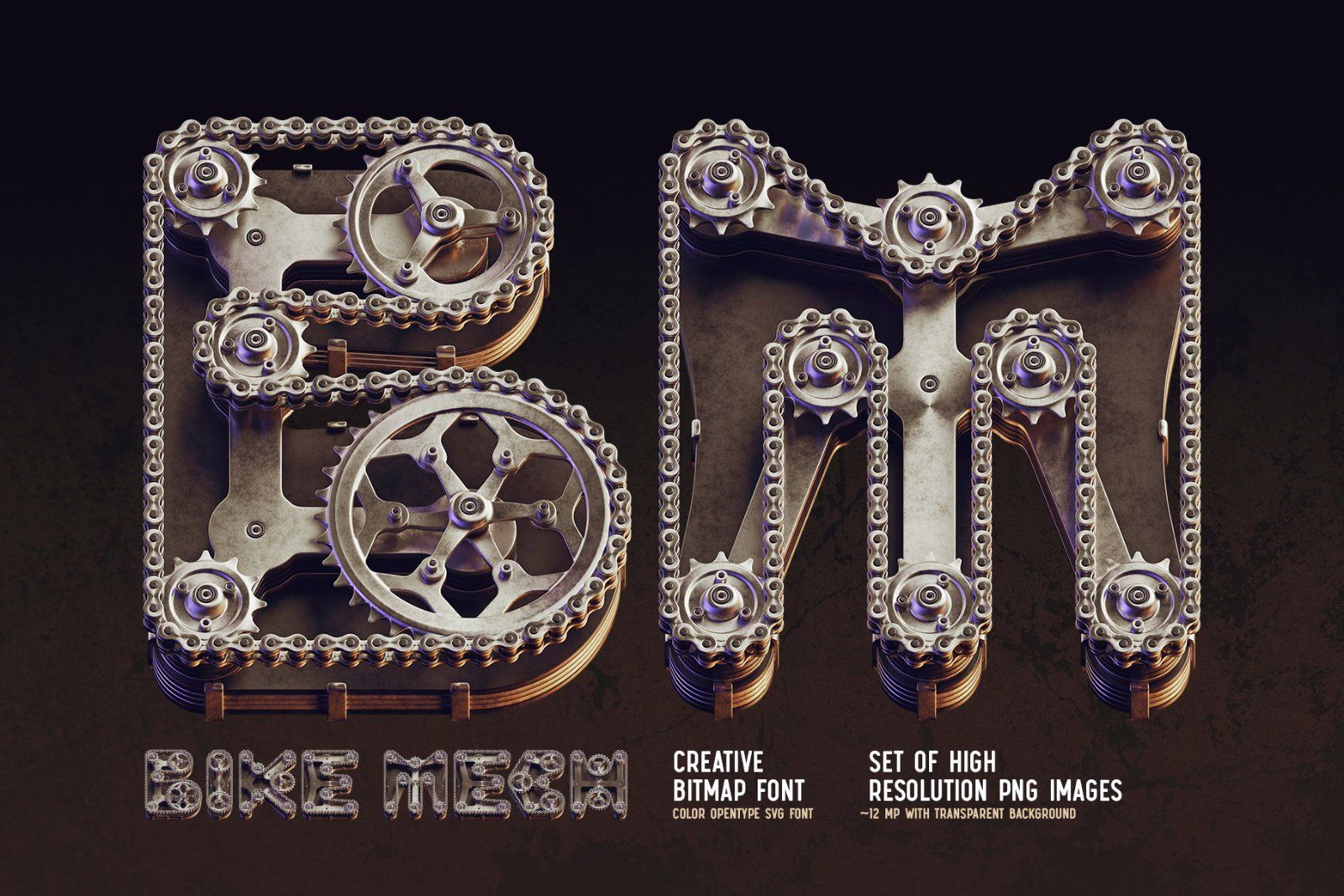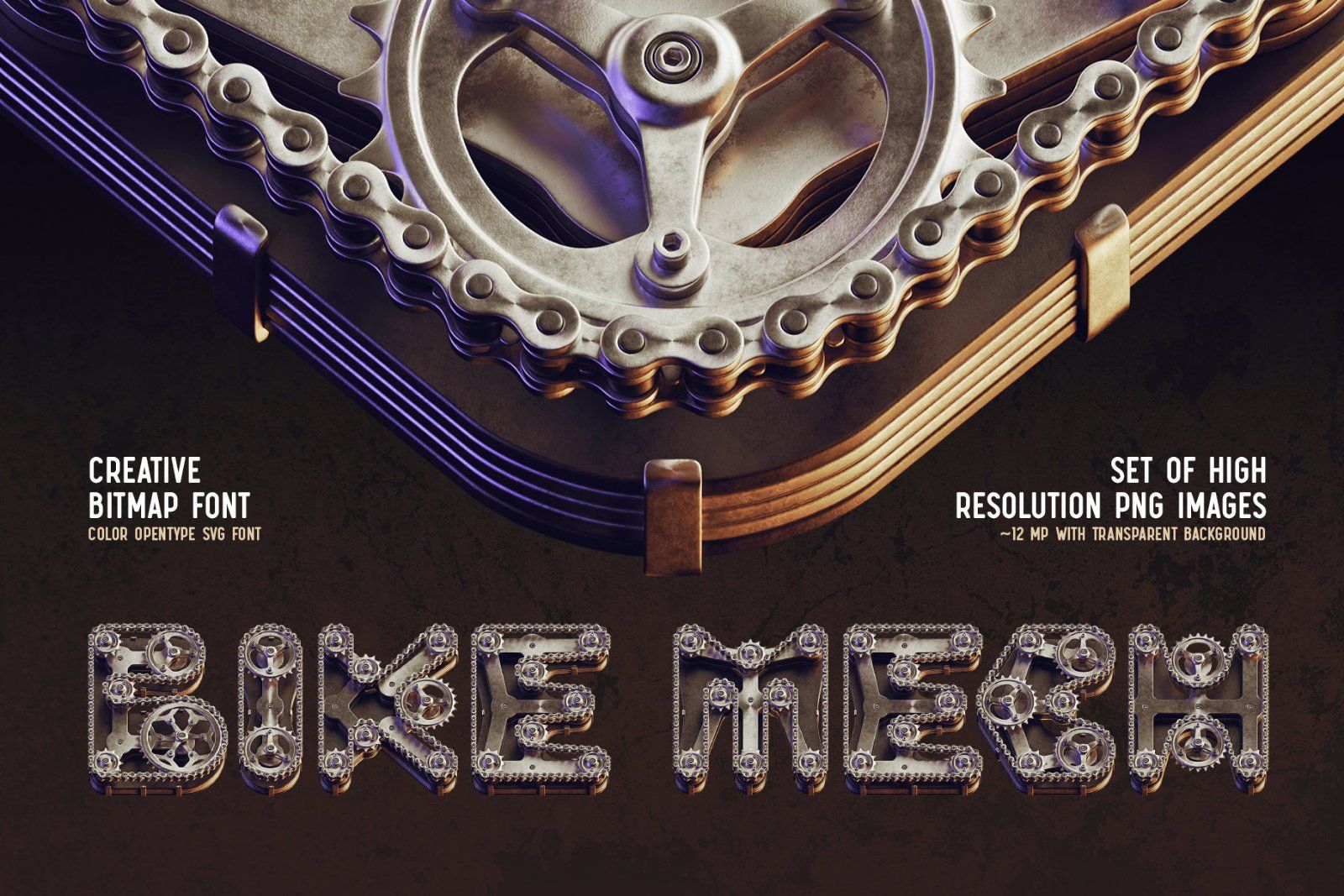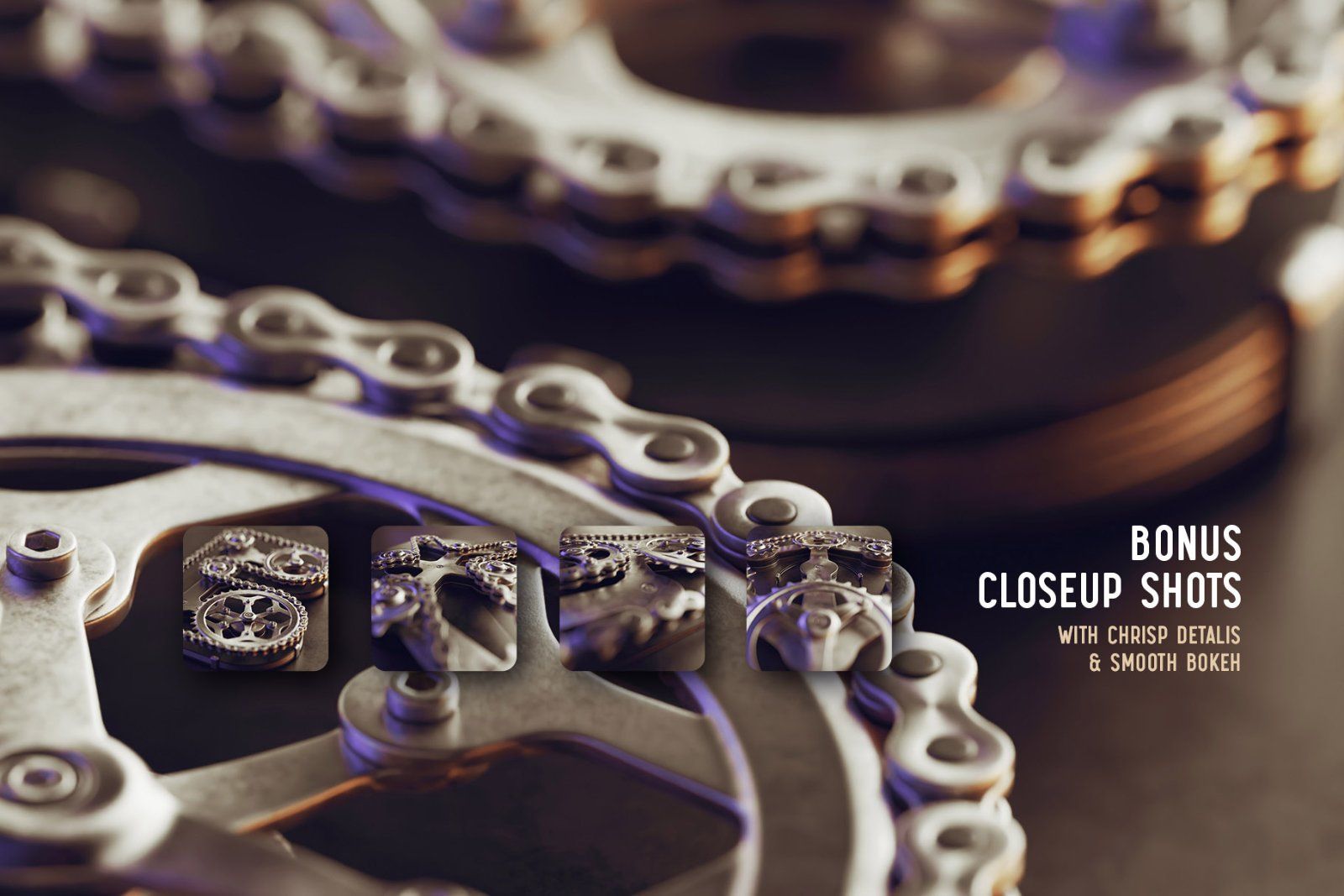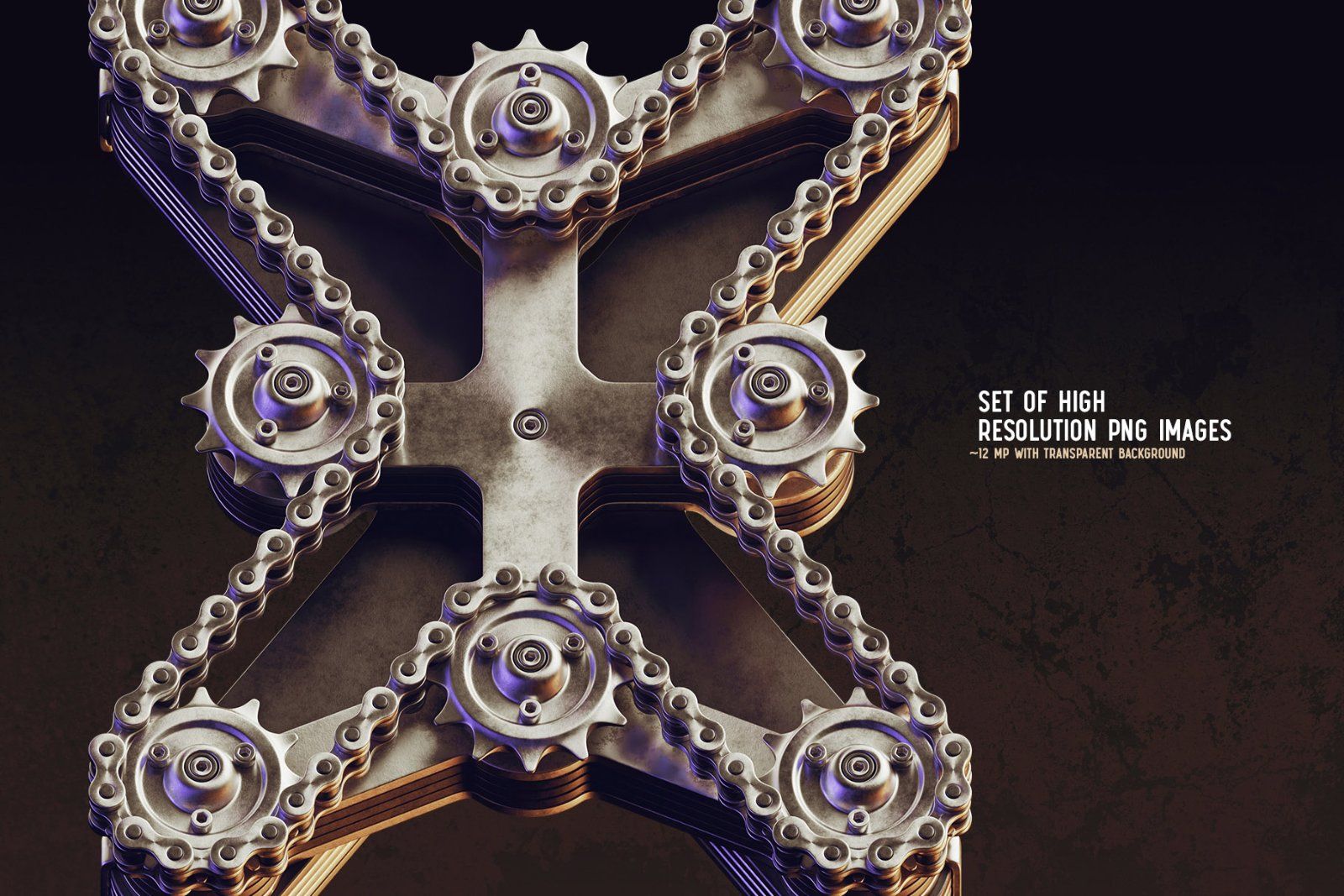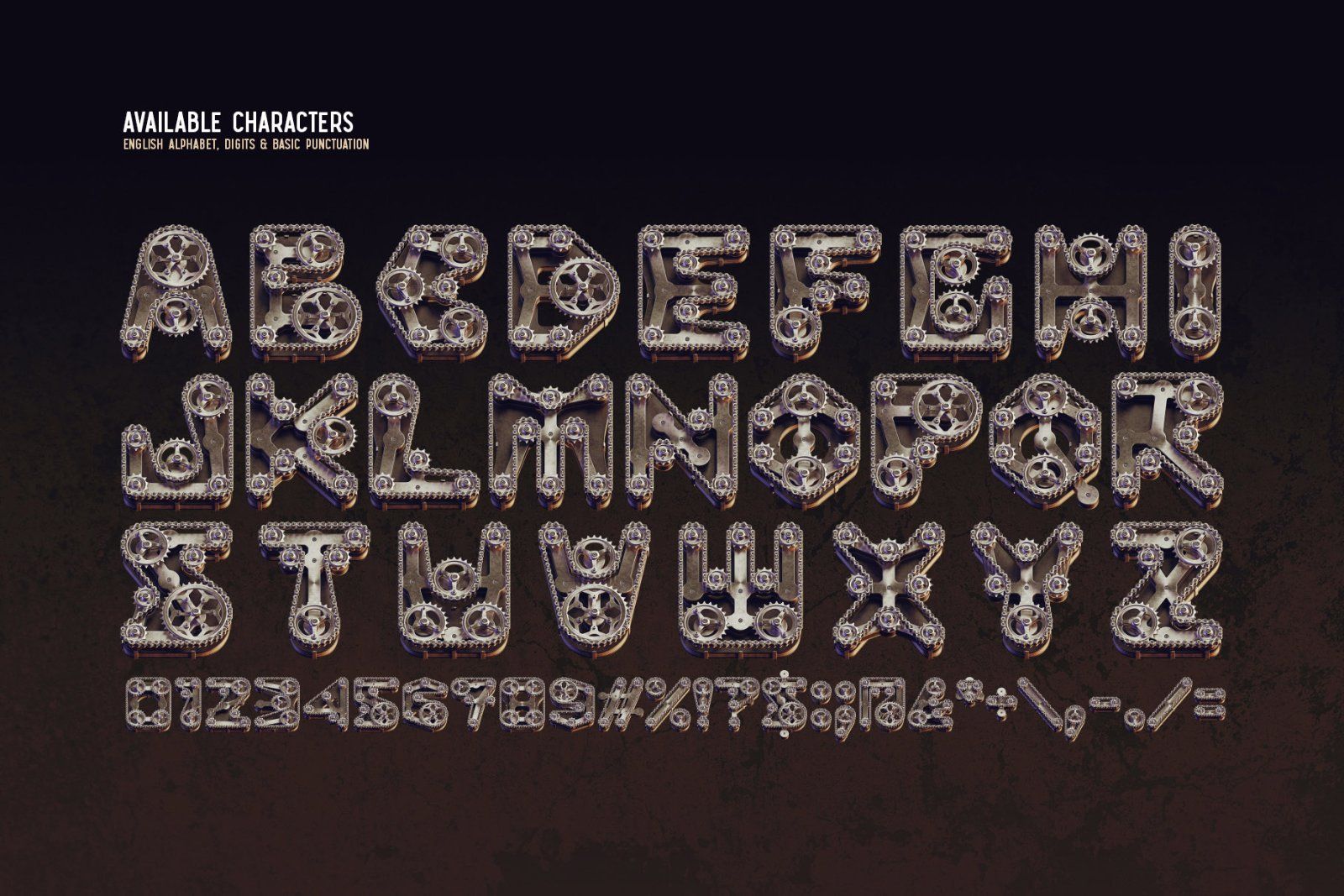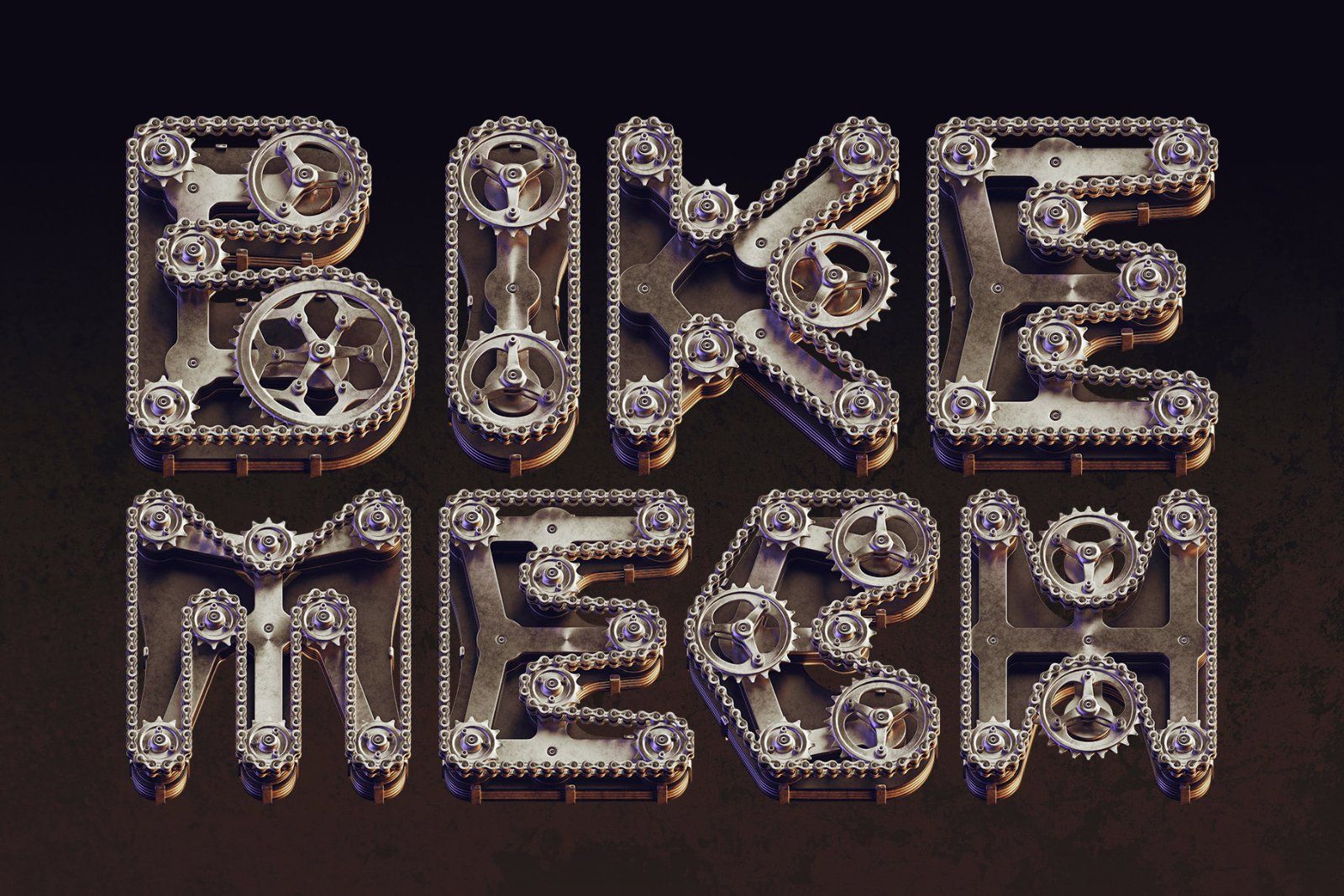
Hello! Presenting a steampunk style font set – Bike Mech. It's a 3d rendered high quality typeface made of bike gears and chain. First of all it's a color bitmap OpenType-SVG font that can be used as a usual OTF font. Also a set of full resolution PNG files with transparent background is included (Average resolution is 12 megapixels). Consider that only English language and basic punctuation is supported, please check out the screenshot with all available characters.